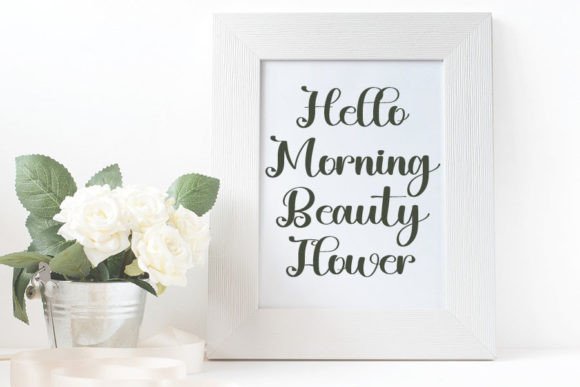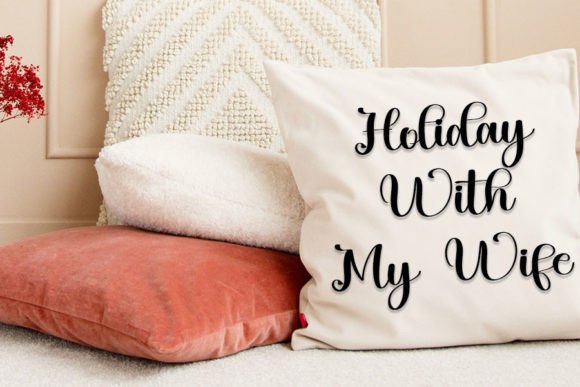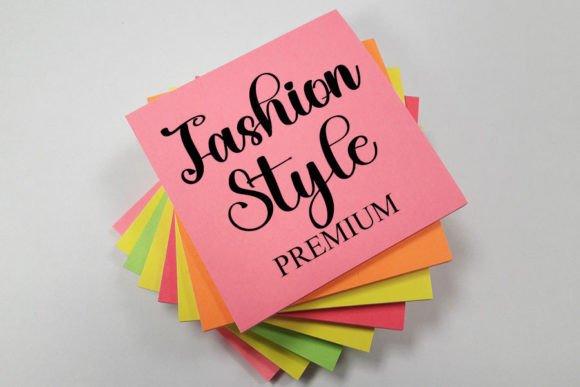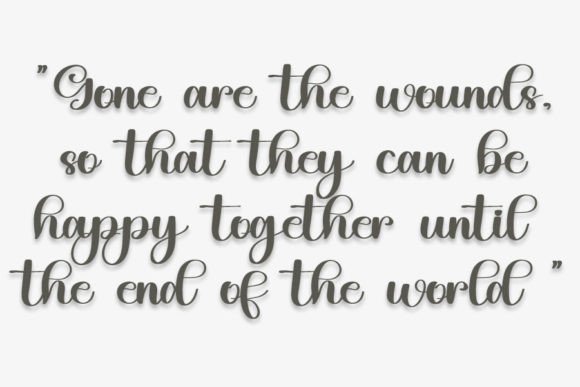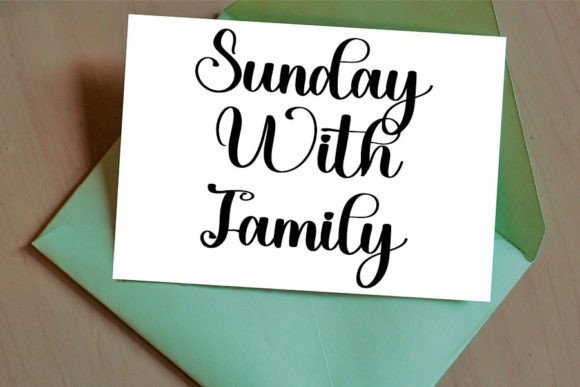
Introducing Clarra Font: Elevate Your Designs with Timeless Elegance
In the world of typography, a font can make or break a design. For designers and crafters seeking to add a touch of sophistication and style to their projects, Clarra Font is an exceptional choice. This stunning handwritten font boasts a contemporary atmosphere and impeccable form, drawing inspiration from timeless classic calligraphy.
The Essence of Clarra Font
Clarra Font is a masterfully crafted typeface that exudes balance and versatility. Its design is rooted in the principles of classic calligraphy, yet it presents a modern and fresh aesthetic. This harmonious blend of traditional and contemporary elements makes Clarra an ideal choice for a wide range of design applications, from branding and advertising to packaging and digital media.
Key Features of Clarra Font
- Handwritten with Flair: Clarra Font is a beautifully handwritten typeface, characterized by its fluid strokes and elegant letterforms. Each character is crafted with precision and care, giving the font a personal and approachable feel.
- Contemporary yet Classic: While Clarra is deeply rooted in classic calligraphy, it has been designed with a modern twist. This allows it to seamlessly integrate into contemporary designs while maintaining a sense of timelessness.
- Balanced and Varied: The font features a well-balanced design with a variety of letterforms, ensuring that it remains visually interesting and engaging. This variation makes it perfect for creating dynamic and compelling text.
- Impeccable Form: Every aspect of Clarra Font, from the letterforms to the spacing, has been meticulously crafted to ensure clarity and readability. This attention to detail makes it suitable for both body text and headlines.
Applications of Clarra Font
The versatility of Clarra Font makes it an excellent choice for a multitude of design projects. Here are some of the areas where Clarra truly shines:
- Branding and Logotypes: Create memorable and elegant brand identities with Clarra. Its unique and stylish appearance can help your brand stand out in a crowded market.
- Advertising and Marketing Materials: Whether it’s for print or digital ads, Clarra Font can add a touch of sophistication and professionalism to your marketing materials.
- Packaging Design: Elevate your product packaging with Clarra. Its elegant appearance can enhance the perceived value of your products and make them more appealing to customers.
- Digital Media: From website headers to social media graphics, Clarra Font can be used to create visually stunning digital content that engages and captivates your audience.
Tips for Using Clarra Font
To get the most out of Clarra Font, consider the following tips:
- Pair with Complementary Fonts: While Clarra is beautiful on its own, it can also be paired with other fonts to create interesting contrasts. Choose fonts that complement its elegant and handwritten feel.
- Experiment with Colors: Clarra Font looks stunning in a variety of colors. Don’t be afraid to experiment with different color schemes to find the one that best suits your design.
- Pay Attention to Spacing: Proper spacing is crucial for readability. Make sure to adjust the spacing between letters and lines to achieve a balanced and harmonious look.
Clarra Font is a stylish and versatile typeface that can elevate the beauty of your projects. With its contemporary atmosphere, impeccable form, and timeless classic calligraphy inspiration, Clarra is an excellent choice for designers and crafters looking to add a touch of elegance and sophistication to their designs. Whether you’re working on branding, advertising, packaging, or digital media, Clarra Font is sure to make a lasting impression.